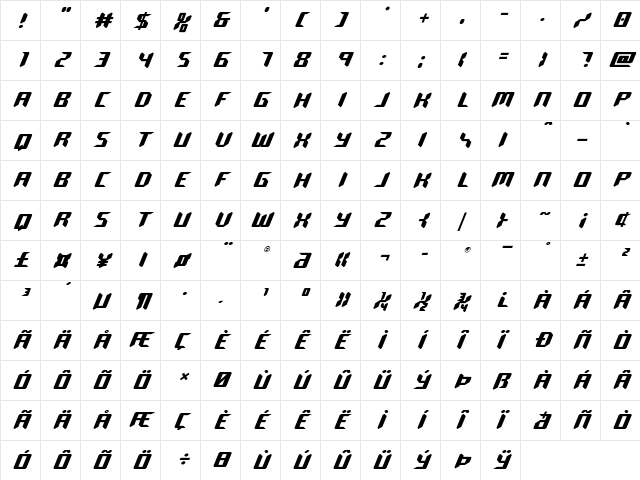
Robo-Clone Title Regular Font Preview
Robo-Clone Title Regular
Robo-Clone Title Regular Font Details
Design Context for Robo-Clone Title Typeface
Robo-Clone Title is a composed and adaptable typeface that performs quietly and consistently across a wide range of design contexts.